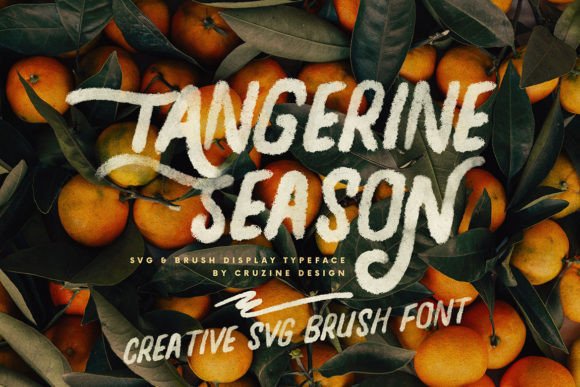
Welcome to the world of Tangerine Season Font, a captivating script font that has the power to transform your digital creations into masterpieces. Brace yourself to be delighted by its lively, dynamic essence that captures the joy and playful energy of a carefree summer season. Created by the renowned JumboDesign, this font oozes modern calligraphy, reflecting the passion and spontaneity of heartfelt strokes beautifully rendered in digital form.
Tangerine Season is not just another font; it's an invitation to explore the boundless possibilities of creativity. Its bold and confident strokes, combinado with a touch of playfulness, create a distinctive visual experience that leaves a lasting impression. Irresistible and alluring, this font will infuse your designs with a burst of vibrant energy that captivates viewers and leaves them longing for more.
Picture this: your resume headline, crafted with Tangerine Season's bold and confident strokes, leaps off the page, demanding attention and exuding professionalism. Let your words dance across the page, leaving a trail of intrigue and curiosity. With its irregular stroke widths and slight slant, this font mimics the beauty of handcrafted lettering, adding an artisanal touch that sets you apart from the mundane. Every stroke feels alive, as if dancing to its own rhythm, inviting readers to delve deeper into your professional narrative.